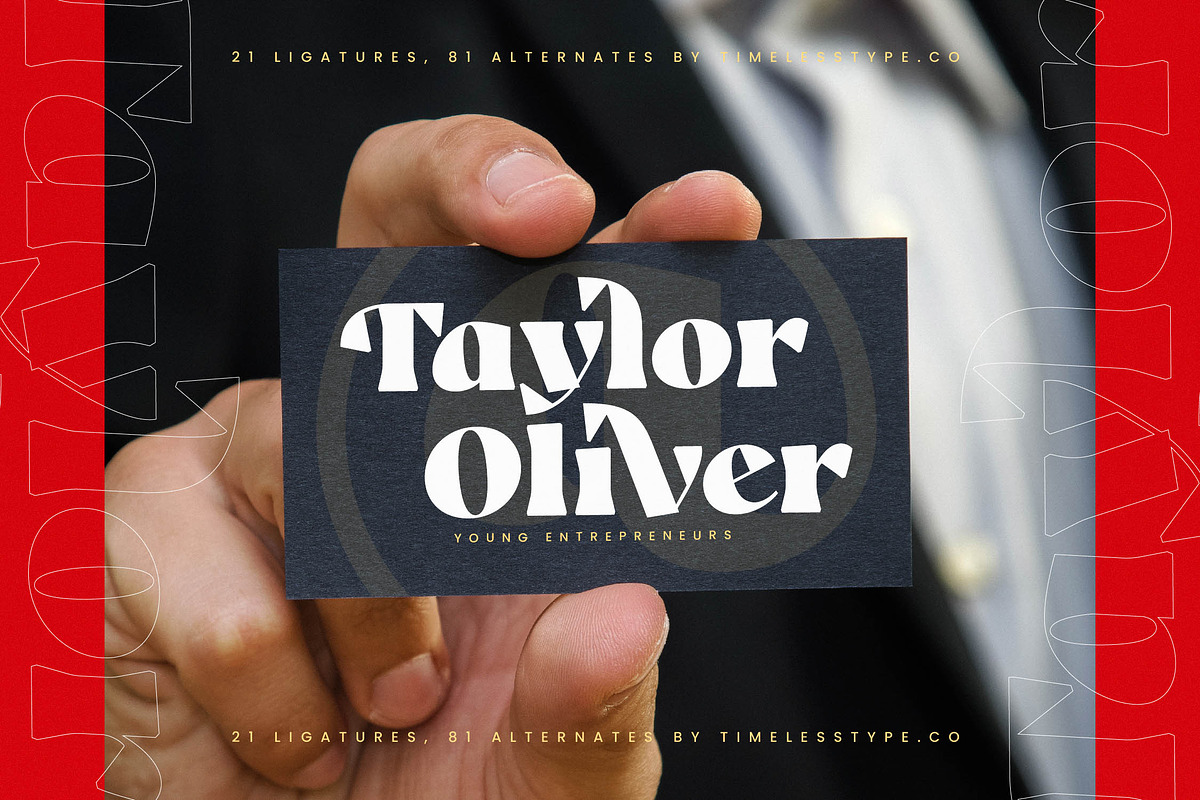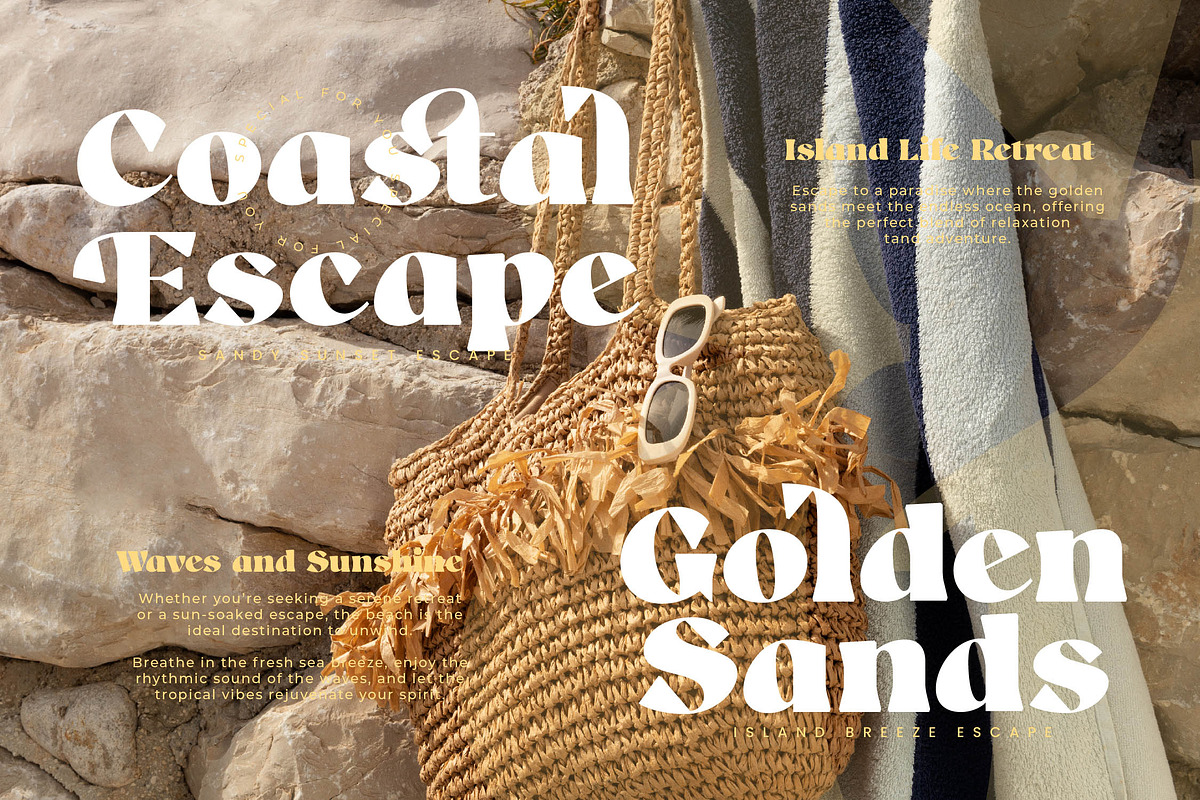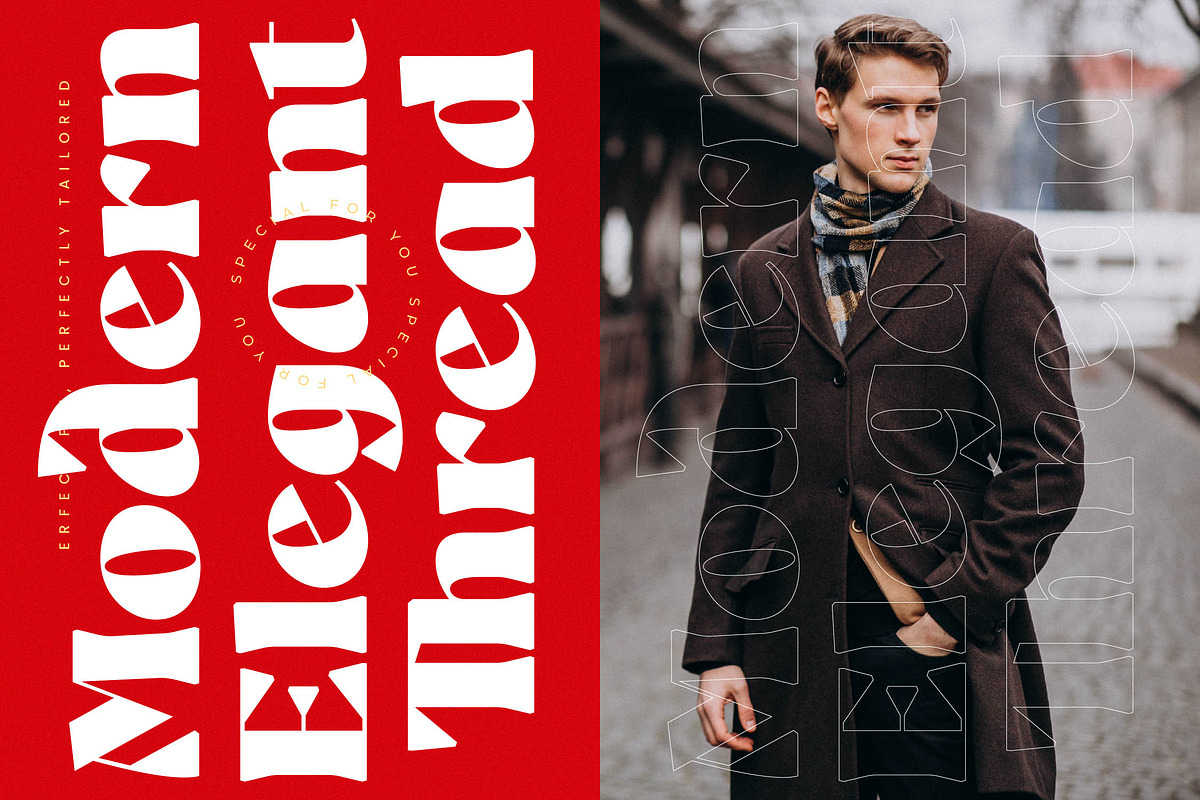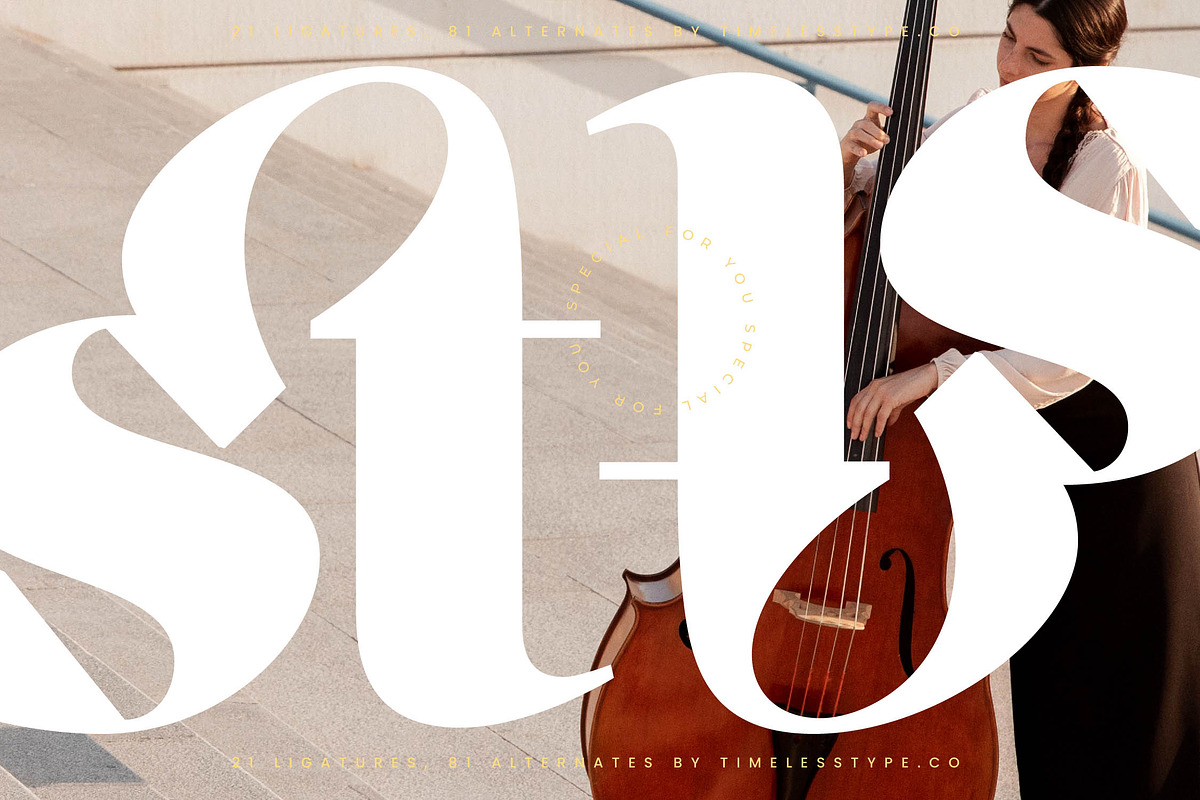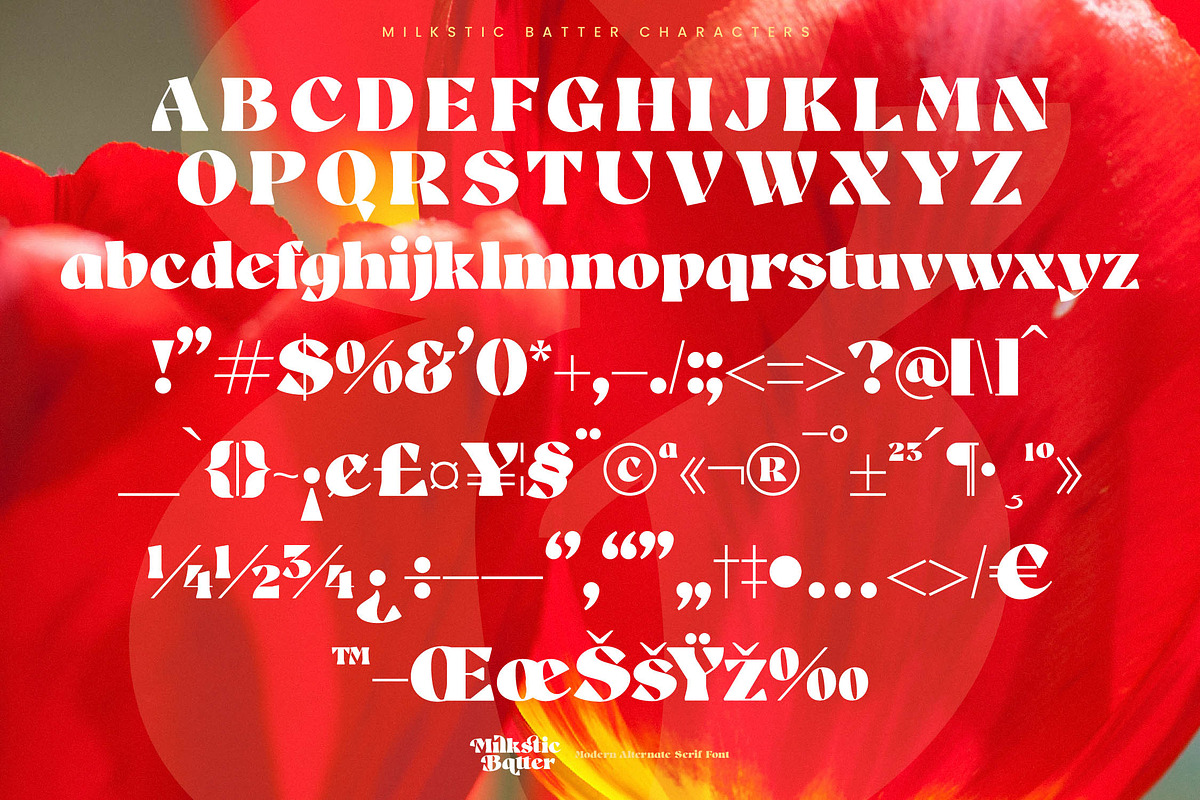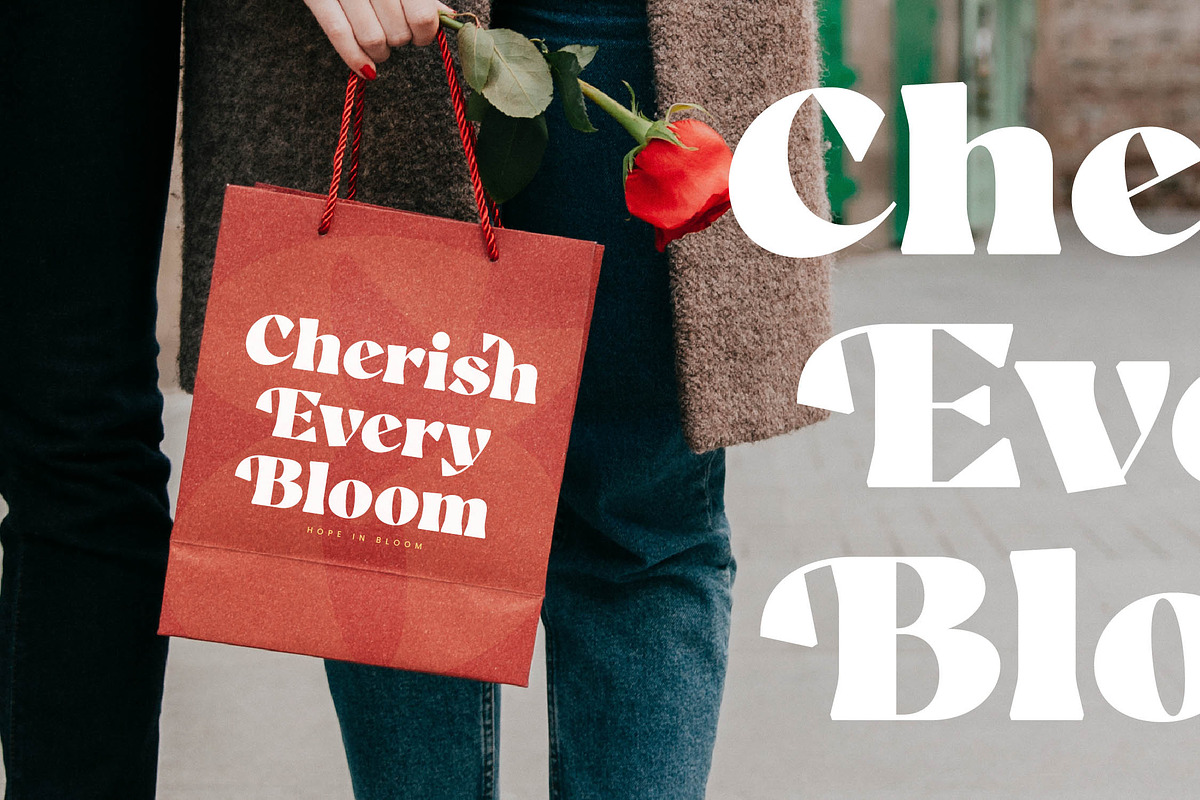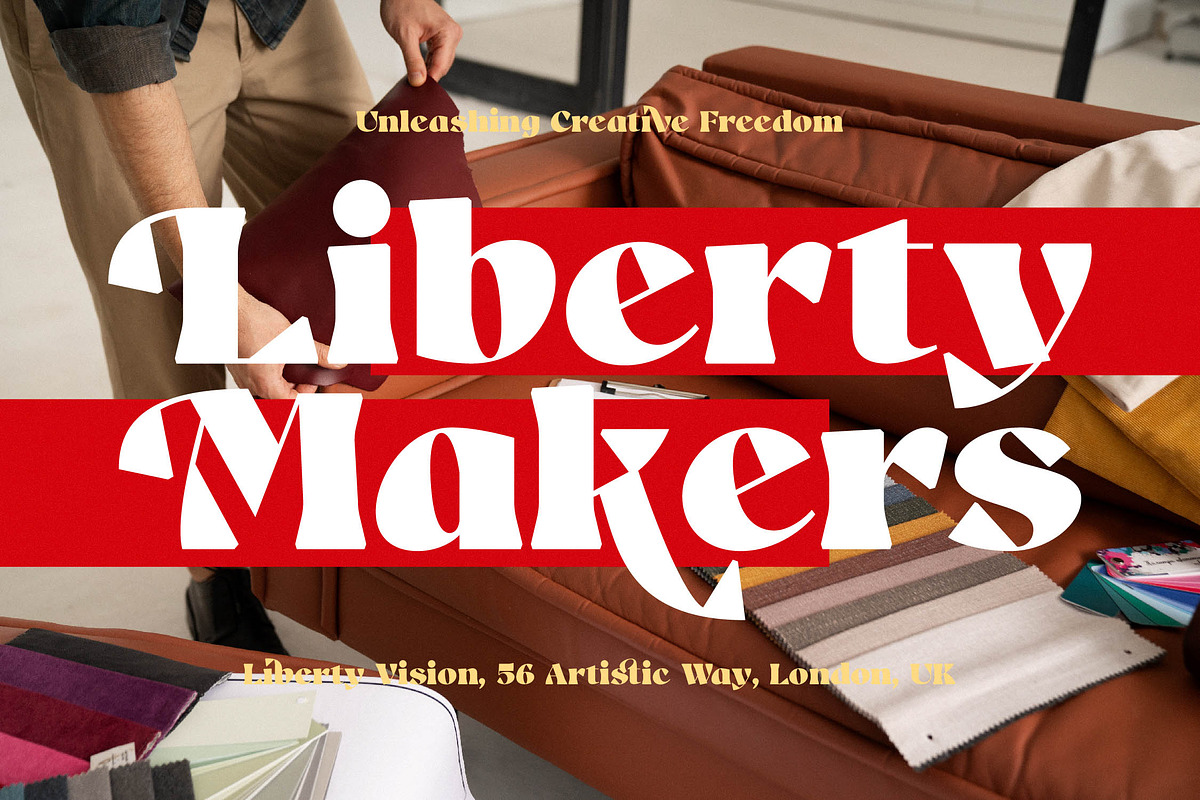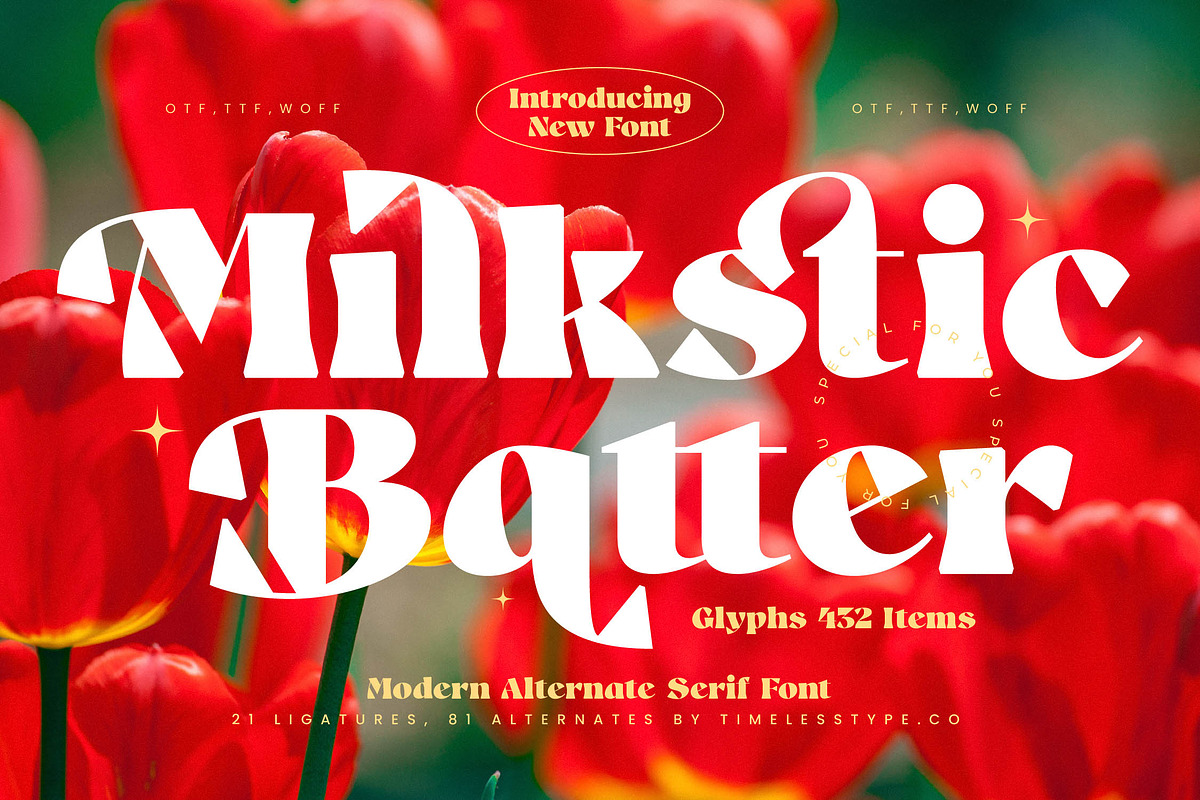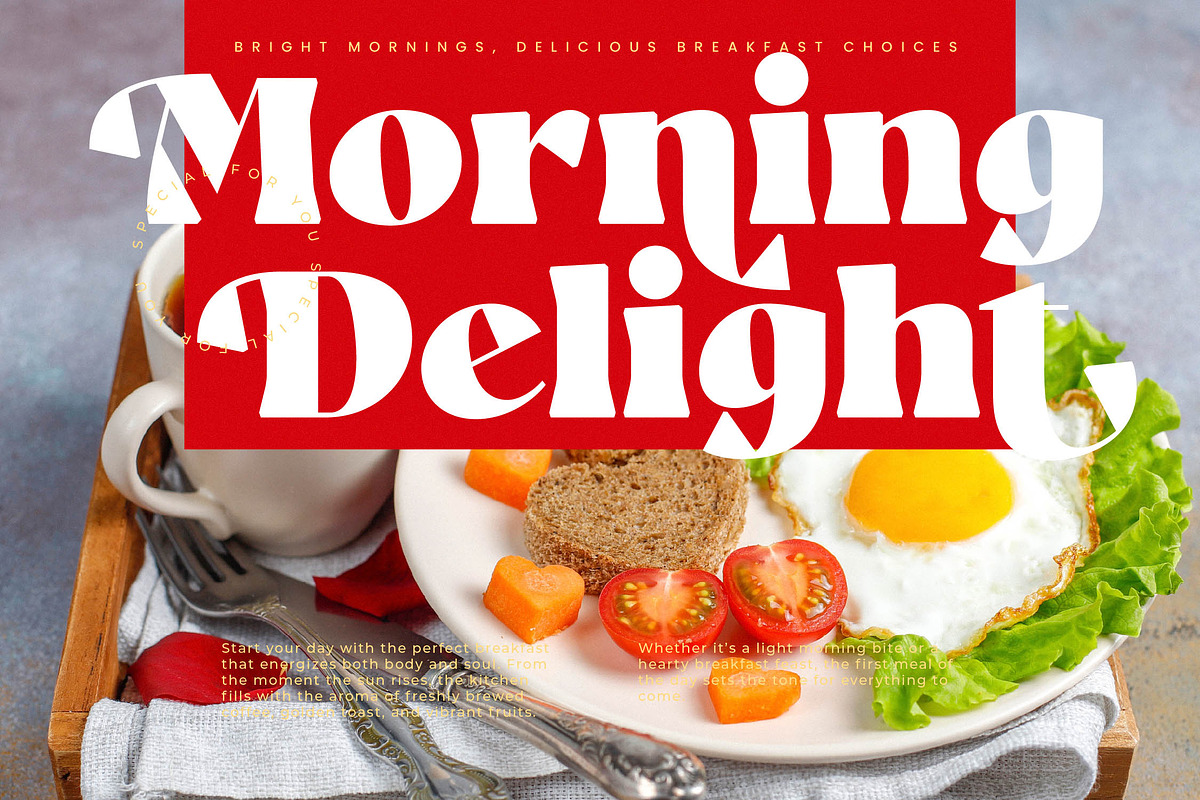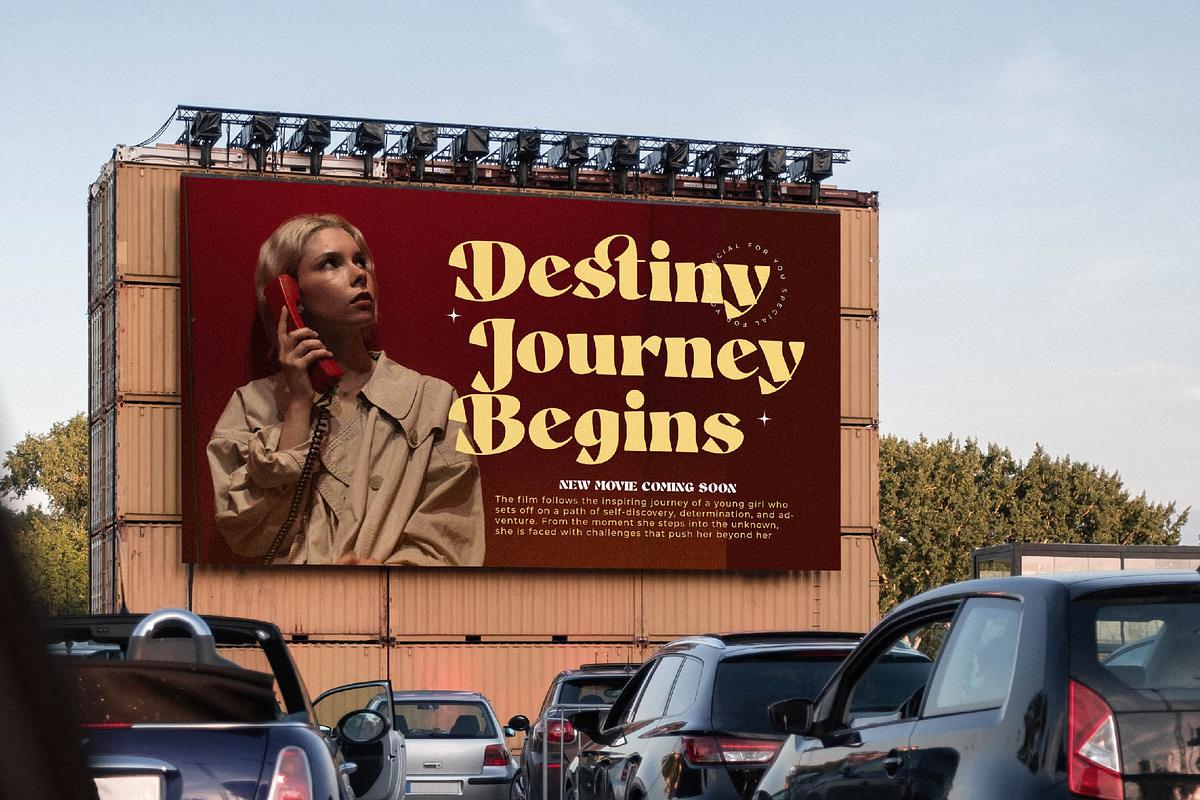
Milkstic Batter Modern Serif
Discover the breathtaking elegance of Milkstic Batter, a typeface that redefines contemporary grace with its sculptural forms and undeniable presence. This is more than just a font; it is a visual statement designed to transform every layout into a work of art.
Inspired by the delicate interplay of organic curves and sharp structural lines found in high-fashion floral editorials, this font captures the essence of a blossoming garden. It evokes a sense of timeless beauty where classic serif foundations meet the fluid, experimental spirit of avant-garde design.
With its modern serif display aesthetic, this typeface offers a masterclass in luxury typography. The high-contrast serif strokes create a rhythmic dance across the page, providing an editorial font feel that ensures a massive branding impact for any premium creative project.
Perfectly aligned with the current modern serif trend, this typeface addresses the growing demand for editorial display fonts that break away from the mundane. Its unique character-driven typography allows designers to tap into a nostalgic yet futuristic vibe that is currently dominating the global design scene.
This versatile tool is ideal for high-end logo design and comprehensive branding identity systems that require a touch of sophistication. From prestige editorial layouts and luxury packaging to romantic wedding stationery and cutting-edge fashion lookbooks, its application is limitless.
Boasting an extensive library of 452 glyphs, the typeface includes a wealth of ligatures and alternates to provide endless creative variations. It also features comprehensive multilingual support and international characters, ensuring your message reaches a global audience with seamless technical precision.
- Ligature 21 Alternate 81